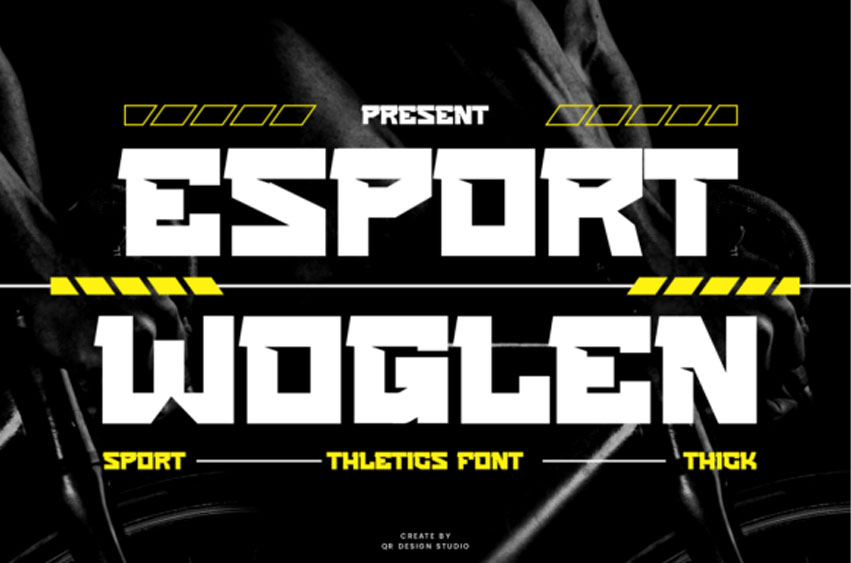
Esport Woglen Font
Esport Woglen Font is a high-impact display font built for strength, energy, and attitude. With its sharp angles, geometric cuts, and commanding presence, this typeface captures the spirit of competition and the aesthetics of athleticism. The letterforms are solid and compact, designed to deliver instant readability and visual dominance across digital and physical platforms.
Defined by its square proportions and stylized cuts, Esport Woglen brings a modern, almost mechanical edge to typography. Its uppercase characters echo a sense of power and precision—perfect for gaming titles, sports branding, fitness apparel, esports logos, and dynamic headlines. Each glyph is sculpted to amplify motion and momentum, making it ideal for high-energy designs that demand attention.
The font includes uppercase, lowercase, and numeric sets, maintaining consistency in its bold typographic rhythm. Whether you’re designing for competitive gaming arenas, athletic campaigns, or streetwear labels, Esport Woglen delivers an aggressive, confident tone that pushes the limits of bold display typography.